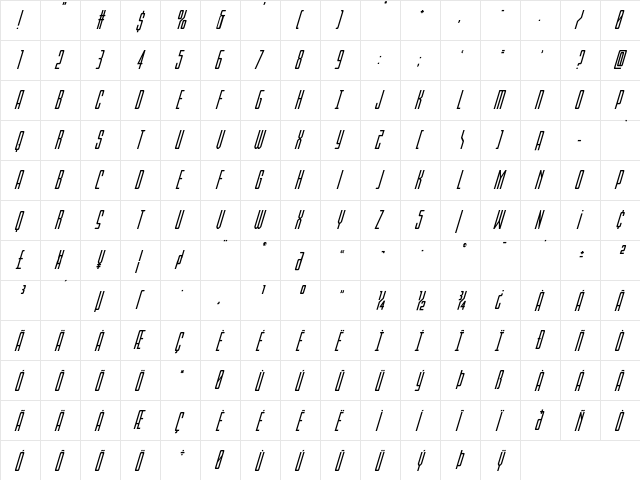
Blue Cobra Super-Italic Regular
Design Context for Blue Cobra Super-Italic Typeface
Blue Cobra Super-Italic takes a measured approach to typography — its balanced proportions and neutral character make it a reliable workhorse for both digital and print work. Its italic angle brings a sense of urgency and motion to the letterforms.
Pro Tip: Use Blue Cobra Super-Italic for emphasis, pull quotes, and subheadings where its slanted energy can add rhythm to the layout.